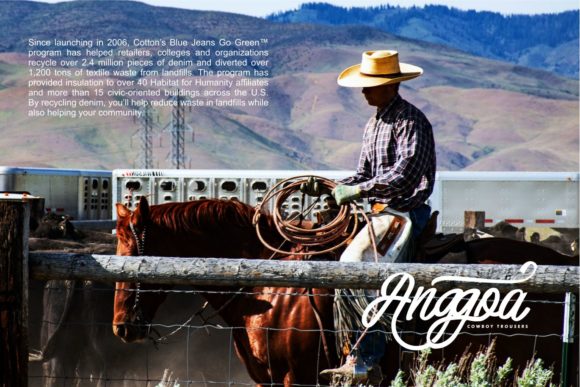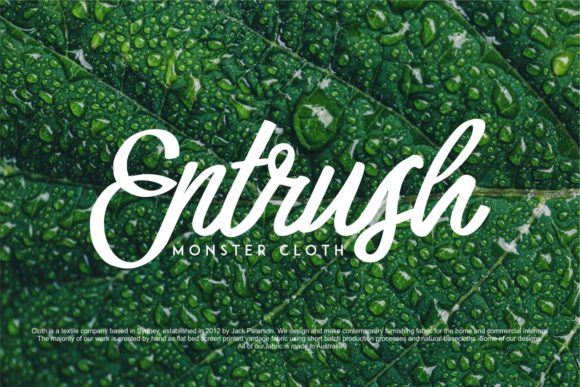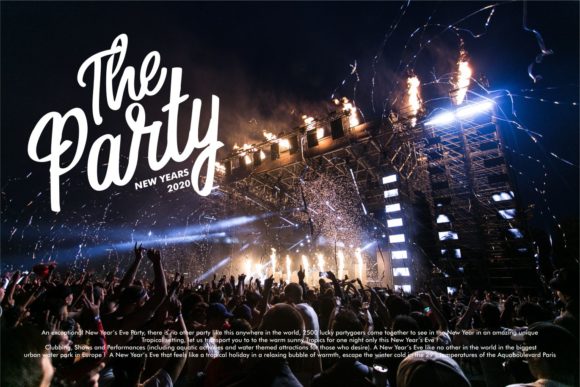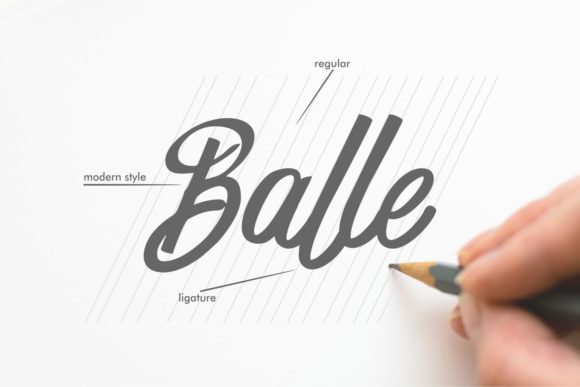
Introduction to Harbala Font
Harbala is a bold and modern handwritten font with a unique feel.
It will turn any design project into a stand out .
Key Features of Harbala Font
Why Choose Harbala Font?